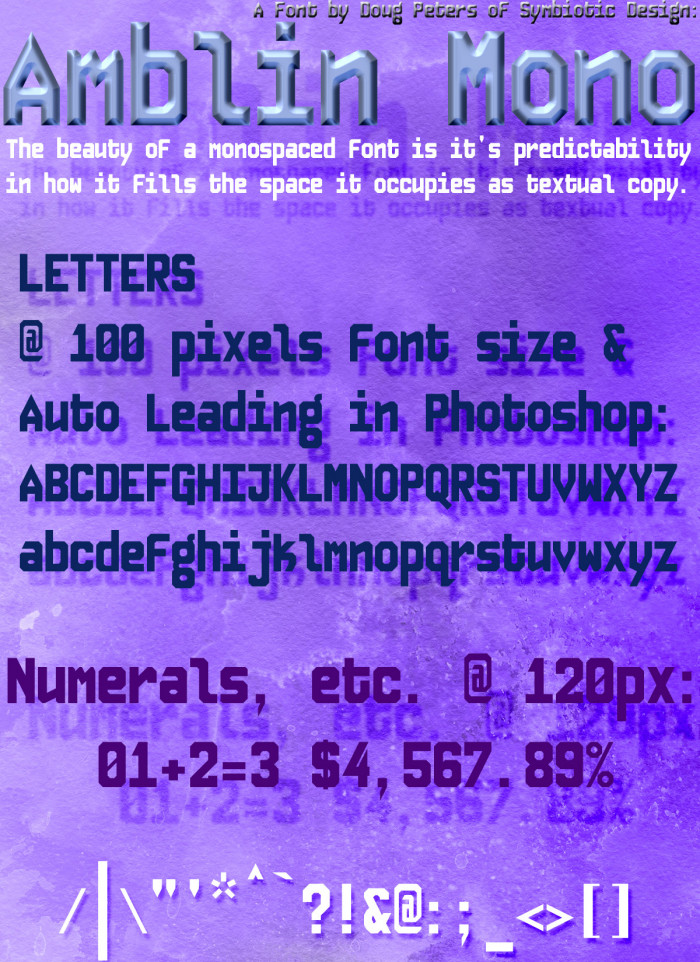
I didn't realize there were no samples of this one up.
If you ask me M, W, n and w still look too fat!
What, you're kidding, right @sed4tives?  It's a monospaced font and the letters are all pretty much the same size width.
I talk about the weight mate  ! ;)
@Sed4tives... I don't see it.  So, I disagree.  I see you left the m out of that list.  I suppose I should probably thicken the sawtooth on that one.  But that is the only one not conforming to the formula.  That said, I think of it as an exception because I have worked on that one so much, so long (kinda tired of it now and I do like the result).  So, if anything needs work, it's that one.
@Sed4tives, you were right. After reading more about the very fundamentals of Font Design I found that I was relying on simple math, but that crossbars and horizontal lines need to be skinner, they are perceived as fatter. Yet another optical illusion. In my head, they were right.  I didn't fix them in this cloned free demo version, and I won't bother because I already did it in the original version.  But it just goes to show how perceptive you are.  I didn't get it at all until I read that.  I should read more (like our fake president).